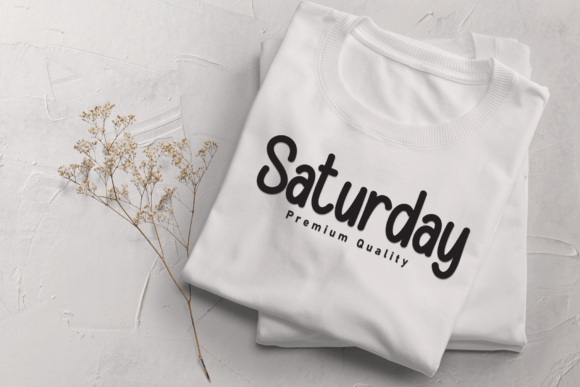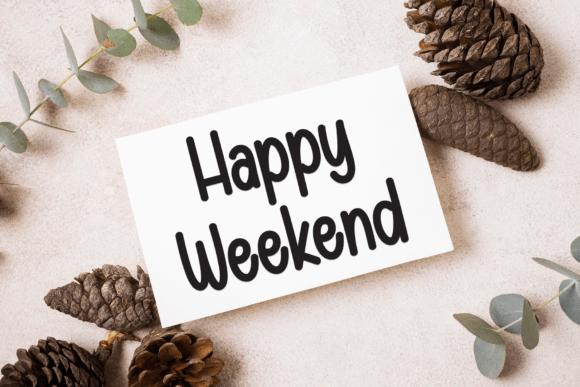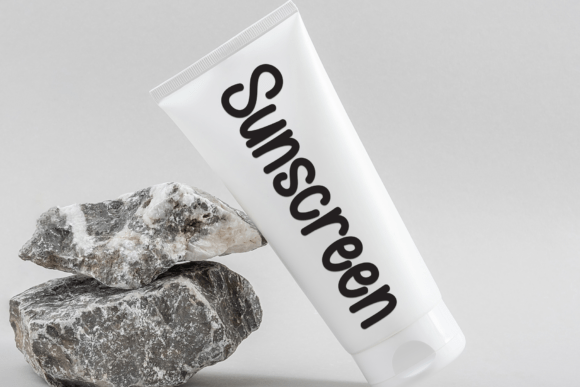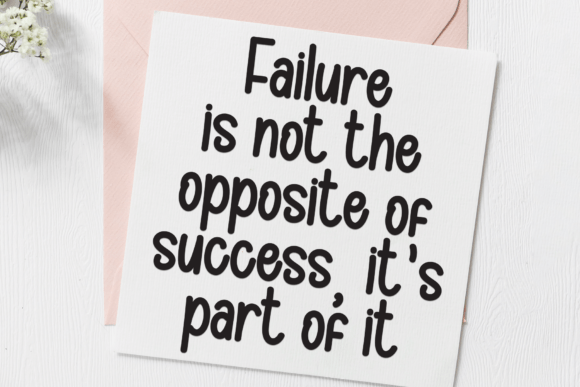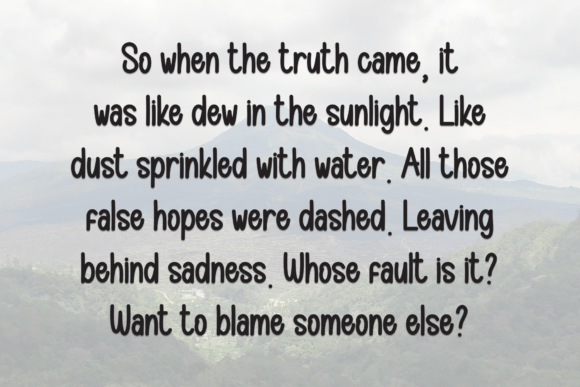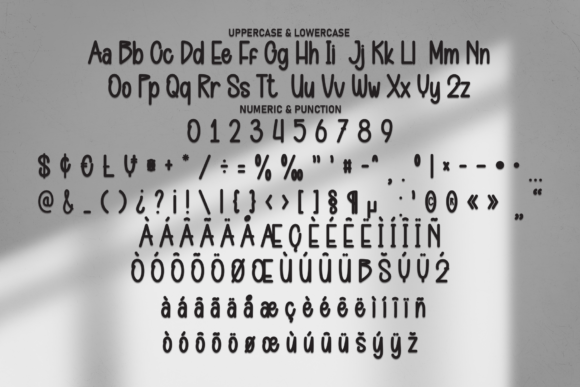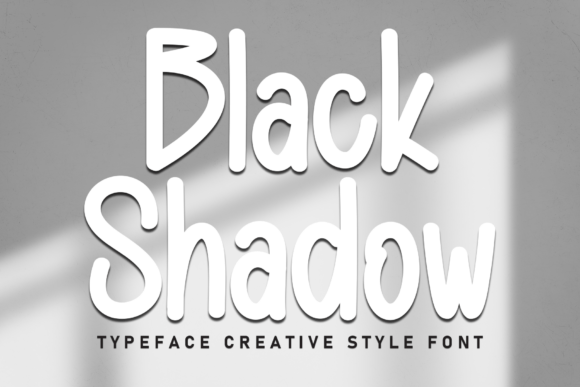
The Perfect Font for Creative Projects: A Deep Dive into Black Shadow
I’ll never forget the time I was working on a branding project for a boutique shop, and I just couldn’t find the right font to capture the essence of the brand. The client wanted something that felt approachable, artistic, and modern, but not too polished. It was like trying to find a needle in a haystack. That’s when I stumbled upon Black Shadow, a creative display font that has since become a staple in my design toolkit.
An Honest Review of Black Shadow
- ✅ Clean, tall letterforms with soft, rounded terminals that give it a friendly, upright posture
- ✅ A generous x-height and clear silhouettes that provide excellent legibility
- ✅ A casual, handcrafted aesthetic that’s perfect for lifestyle branding, creative blog headers, and personalized social media quotes
- ✅ The font’s ability to mimic the smooth strokes of a marker, giving it an organic feel
While Black Shadow is an amazing font, it’s not perfect. Here are a few things to keep in mind:
- 🤔 It may not be the best choice for body text or long paragraphs, as it’s designed for display purposes
- ⚠️ Some of the letters may get a bit lost at very small sizes, so it’s best to use it at larger sizes
The Backstory of Black Shadow
Black Shadow was designed by a team of creatives who wanted to create a font that captured the essence of hand-drawn lettering. The font was inspired by the smooth strokes of a marker and the imperfections of hand-drawn letters. The designers aimed to create a font that felt approachable, artistic, and modern, but not too polished.
Q: What is Black Shadow font?
A: Black Shadow is a creative display font that captures the organic feel of hand-drawn lettering. It features clean, tall letterforms with soft, rounded terminals and a friendly, upright posture.
Q: What is Black Shadow font used for?
A: Black Shadow is perfect for lifestyle branding, creative blog headers, nursery decor, and personalized social media quotes. It’s also great for logos, signage, and any other project that needs a touch of personality.
Q: Is Black Shadow a script font?
A: No, Black Shadow is not a script font. It’s a display font with a clean, sans-serif design and a friendly feel.